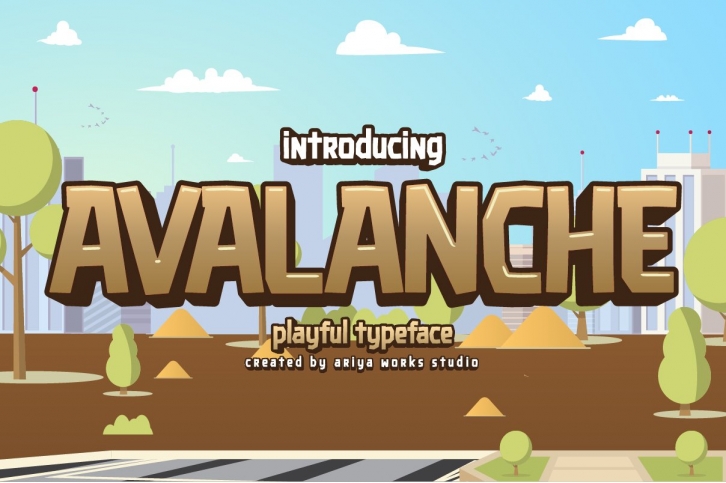
Avalanche is a gorgeous font that was realeased on October 14, 2020. The font can be used in many style contexts and design environments. Perfect for invitations, magazines, websites, logos, and more! It was designed by Ariya Works and the file size is 21.82 MB. Thanks for checking out this font!